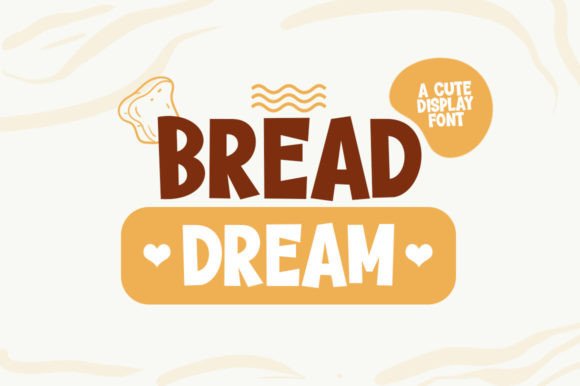
Bread Dream Font: The Perfect Addition to Your Design Toolbox
Are you a designer or crafter looking for a font that can add a touch of modern cuteness to your projects? Look no further than the Bread Dream Font! This versatile display font is perfect for a wide range of applications, from posters and logos to magazines, book covers, and banners. In this article, we’ll take a closer look at the Bread Dream Font and explore how it can elevate your designs.
What is Bread Dream Font?
Bread Dream Font is a modern and cute display font designed to make your designs stand out. Its unique and playful style makes it perfect for projects that require a touch of whimsy and personality. Whether you’re creating a logo, poster, or social media graphic, this font is sure to grab attention and leave a lasting impression.
Key Features of Bread Dream Font
- Modern and Cute Design: Bread Dream Font boasts a fresh and adorable design that’s perfect for modern designs.
- Versatile: This font is suitable for a wide range of projects, including posters, logos, magazines, book covers, banners, and more.
- Easily Customizable: Bread Dream Font can be easily matched with a vast array of projects, making it a great addition to your design toolbox.
Bread Dream Font is an excellent choice for designers and crafters who want to add a personal touch to their projects. Its modern and cute design makes it perfect for:
- Posters and Flyers: Create eye-catching posters and flyers that grab attention and communicate your message effectively.
- Logos and Branding: Use Bread Dream Font to create a unique and memorable logo that reflects your brand’s personality.
- Magazines and Book Covers: Add a touch of modern cuteness to your magazine or book cover designs.
- Banners and Signs: Create visually appealing banners and signs that showcase your message.
Why Choose Bread Dream Font?
With so many fonts available, why choose Bread Dream Font? Here are just a few reasons:
- Unique Design: Bread Dream Font boasts a unique and playful design that sets it apart from other fonts.
- Highly Versatile: This font can be used for a wide range of projects, making it a great value for designers and crafters.
- Easily Readable: Despite its playful design, Bread Dream Font is highly readable, making it perfect for body text and headlines.
- Experiment with Different Sizes: Bread Dream Font looks great in a variety of sizes, from small captions to large headlines.
- Pair it with Other Fonts: Try pairing Bread Dream Font with other fonts to create a unique and visually appealing design.
- Add it to Your Design Toolbox: With its versatility and readability, Bread Dream Font is a great addition to any design toolbox.